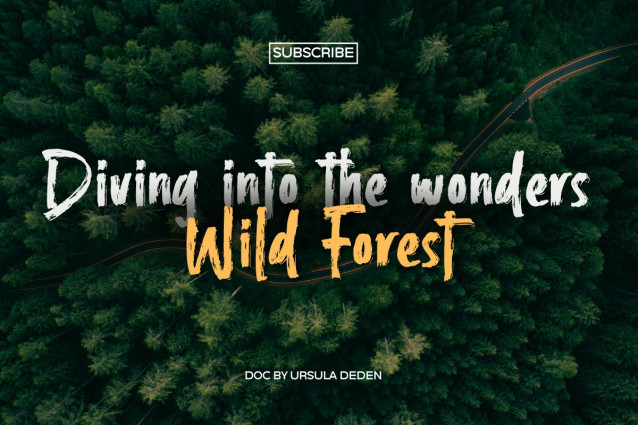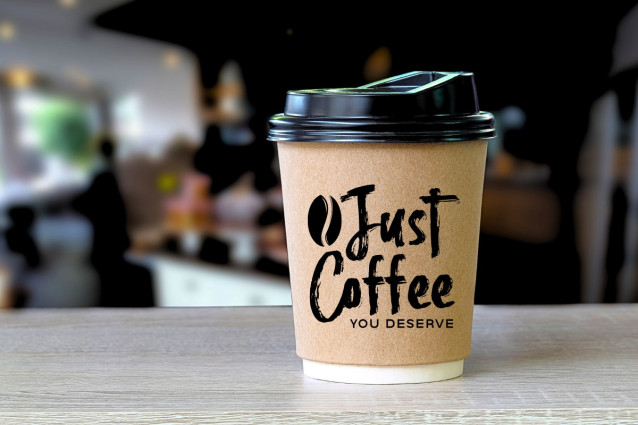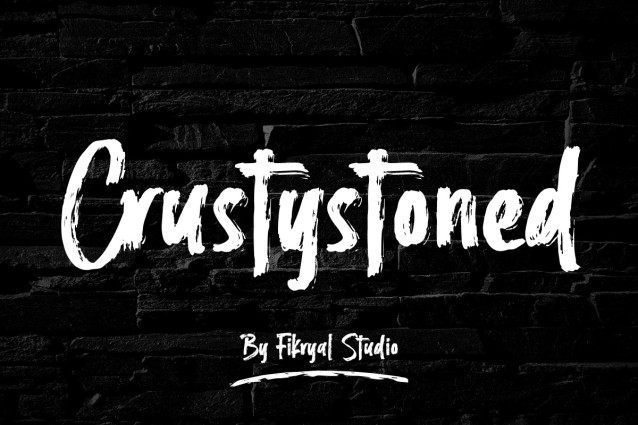
Crustystoned Brush Font
Crustystoned Brush Font is a bold and expressive brush handwritten font that captures the raw energy of hand-painted strokes. Perfectly imperfect, this font brings a handcrafted vibe that’s ideal for:
Product branding like perfume, skincare, fashion labels, and packaging
YouTube thumbnails that need to stand out with bold, attention-grabbing text
Posters, logos, social media graphics, handwritten quotes, and more